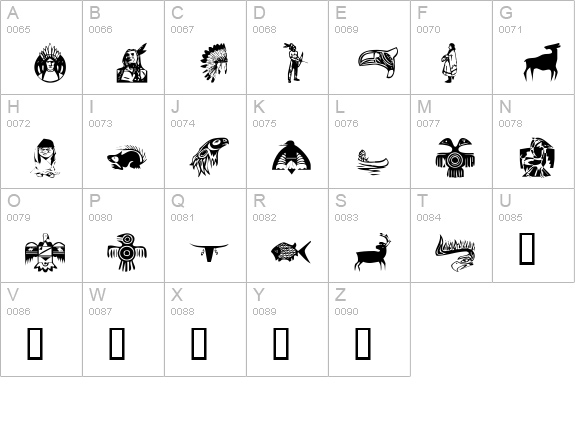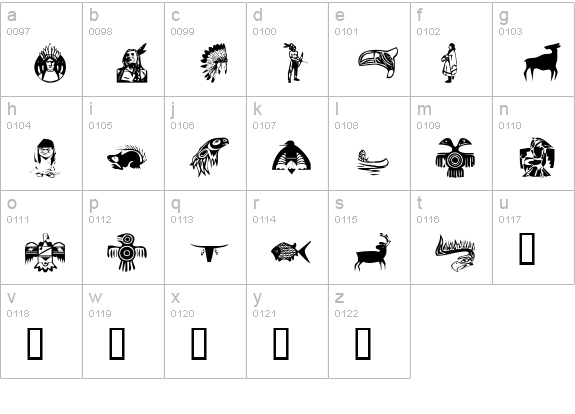
KR NA Dings Font Details
Introducing KR NA Dings font, a versatile and playful typeface that will add a touch of whimsy to any design project. This font is perfect for creating eye-catching headlines, social media graphics, invitations, and more. With its unique characters and charming design, KR NA Dings font will surely stand out and leave a lasting impression. The best part? KR NA Dings font is completely free to download at FontsMarket.com. Yes, you read that right - this amazing font is available for free, allowing you to bring your creative ideas to life without breaking the bank. Don't miss out on this fantastic opportunity to enhance your designs with the delightful KR NA Dings font. Download it now and let your creativity soar!